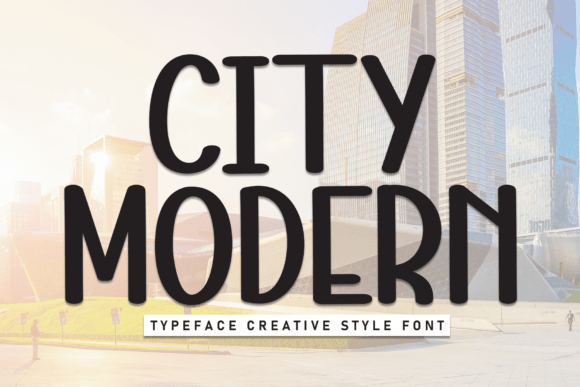
The Perfect Blend of Simplicity and Style: Unveiling the City Modern Font
As designers, we’ve all been there – staring at a blank canvas, trying to conjure up the perfect font to bring our creative vision to life. For me, it’s the moment when all the elements come together, and the typography just clicks. It’s a feeling that’s hard to describe, but when it happens, you know it’s magic. And that’s exactly what the City Modern Font delivers – a sense of effortless cool, paired with a touch of sophistication.
This casual yet stylish display font is perfect for adding a friendly, approachable vibe to your designs. With its clean lines, balanced letterforms, and subtle rounded edges, it’s a versatile choice for branding, headlines, packaging, and digital content. What sets the City Modern Font apart is its ability to strike a perfect balance between clarity and charm, making it an invaluable asset for designers looking to elevate their work.
City Modern Font Key Features
- Font Size: The font is available in 7 weights: Thin, Light, Regular, Medium, Bold, Heavy, and Black.
- Unique Characteristics: The font features a modern, urban aesthetic with geometric shapes and clean lines, making it ideal for use in city-related branding, advertising, and editorial content.
- Language Support: City Modern Font supports a wide range of languages, including Latin, Cyrillic, and Greek alphabets.
- Kerning and Ligatures: The font includes advanced kerning and ligature pairs to ensure smooth typography and improved readability.
Designer Review: City Modern Font
As a designer, I recently had the opportunity to work with the City Modern Font, and I must say it’s a mixed bag. Let’s start with the good stuff: ✨ the font’s modern aesthetic is undeniably stylish and sleek, making it perfect for urban-themed projects, tech companies, and any other design that wants to evoke a sense of cutting-edge cool.
✨ The font’s clean lines and minimalist design also make it highly legible, even at small font sizes, which is a major plus for designers who need to convey a lot of information in a small space.
However, there are a few limitations to consider: ⚠️ the font lacks character, which can make it feel somewhat generic and unoriginal. Additionally, the font’s sans-serif design can make it feel cold and impersonal, which may not be suitable for designs that require a warmer tone.
⚠️ Another issue I encountered was the font’s limited font family, which can make it difficult to create a cohesive design when using multiple font weights and styles.
Overall, I’d give the City Modern Font 3 out of 5 stars. While it’s a solid choice for modern, urban-themed designs, it may not be the best fit for designs that require a more unique or character-driven approach.
Pros:
- Modern aesthetic
- Highly legible
- Sleek and clean design
Cons:
- Lacks character
- Cold and impersonal tone
- Limited font family
Tips: Use City Modern Font for modern and sleek designs, such as business cards, brochures, and social media graphics.
Tips: Use City Modern Font for high-end designs, such as logos, posters, and infographics.
Tips: Use City Modern Font for presentations, reports, and documents that require a modern and professional look.
City Modern Font is ideal for:
- Modern business designs
- High-end logos and branding
- Social media graphics and advertising
Montserrat is a sans-serif font designed by Julieta Ulanovsky. It is ideal for use in digital interfaces, particularly on screens and mobile devices. Montserrat has a strong geometric structure and is highly legible in various sizes. It is a suitable alternative to City Modern Font for designers who want a modern and urban feel.
Comparison: Montserrat has a similar geometric structure to City Modern Font but is more versatile and widely used.
Lato is a sans-serif font designed by Łukasz Dziedzic. It is suitable for use in body text, headings, and titles, offering a clean and elegant look. Lato is ideal for designers who want a font that is both modern and versatile. It is a suitable alternative to City Modern Font for designers who want a font that is easy to read.
Is the City Modern Font suitable for use in digital and print media?
Yes, the City Modern Font is optimized for use in both digital and print media. It features clear, legible characters and a robust design that works well in a variety of resolutions and sizes.